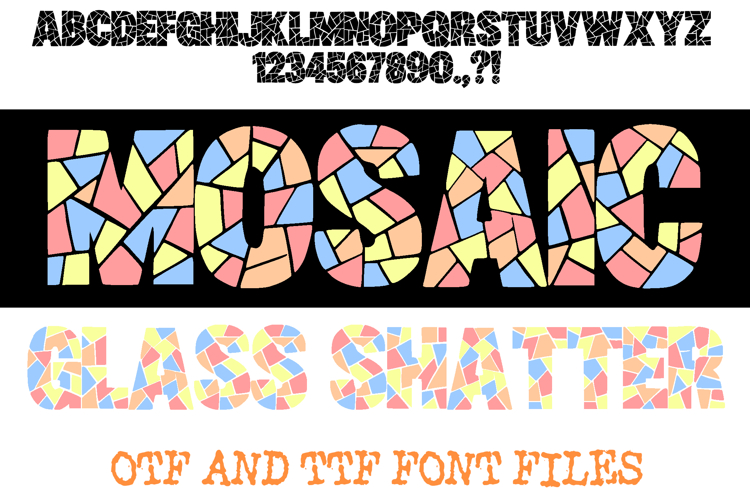
Bring vibrant creativity to your designs with the Mosaic Glass Shatter Font! This bold and colorful display typeface features a unique broken glass mosaic pattern, perfect for eye-catching titles, posters, digital art, craft projects, and more. Available in OTF and TTF formats, this handcrafted font adds a playful yet artistic edge to any design. Ideal for crafters, designers, and DIY creators looking for a standout lettering style inspired by stained glass and abstract patterns.